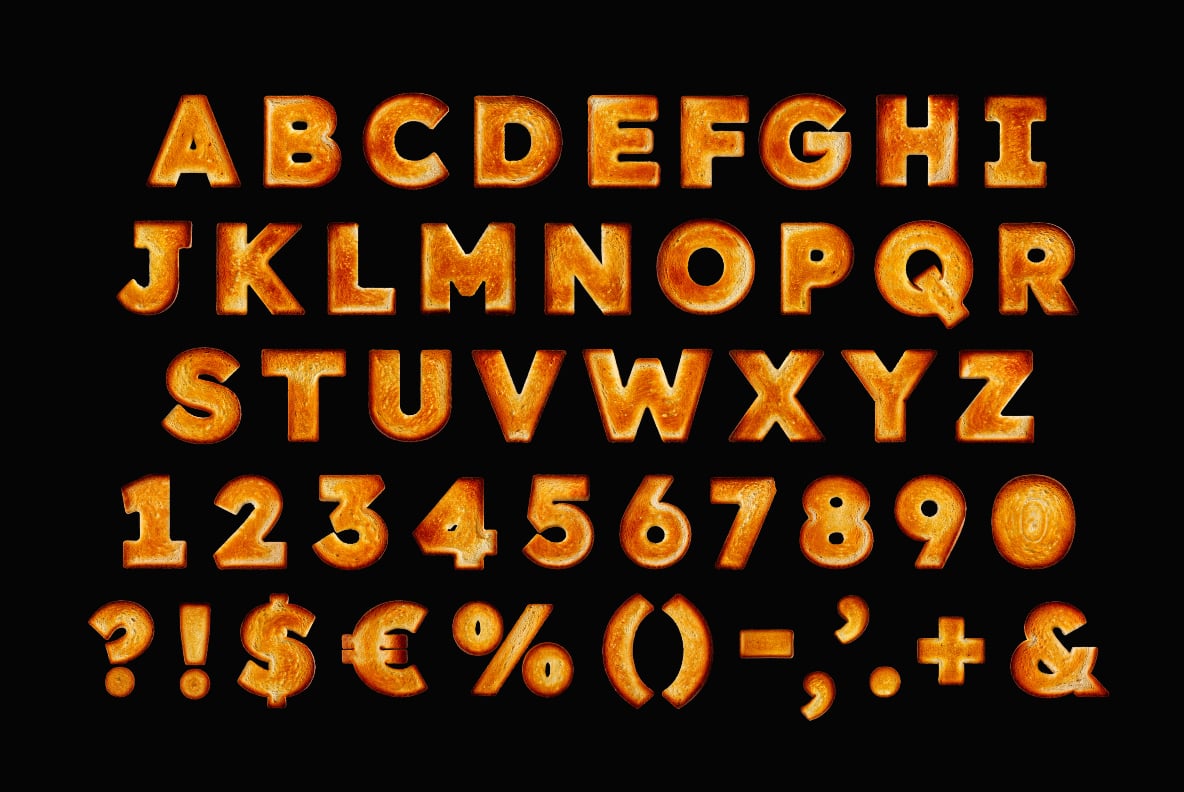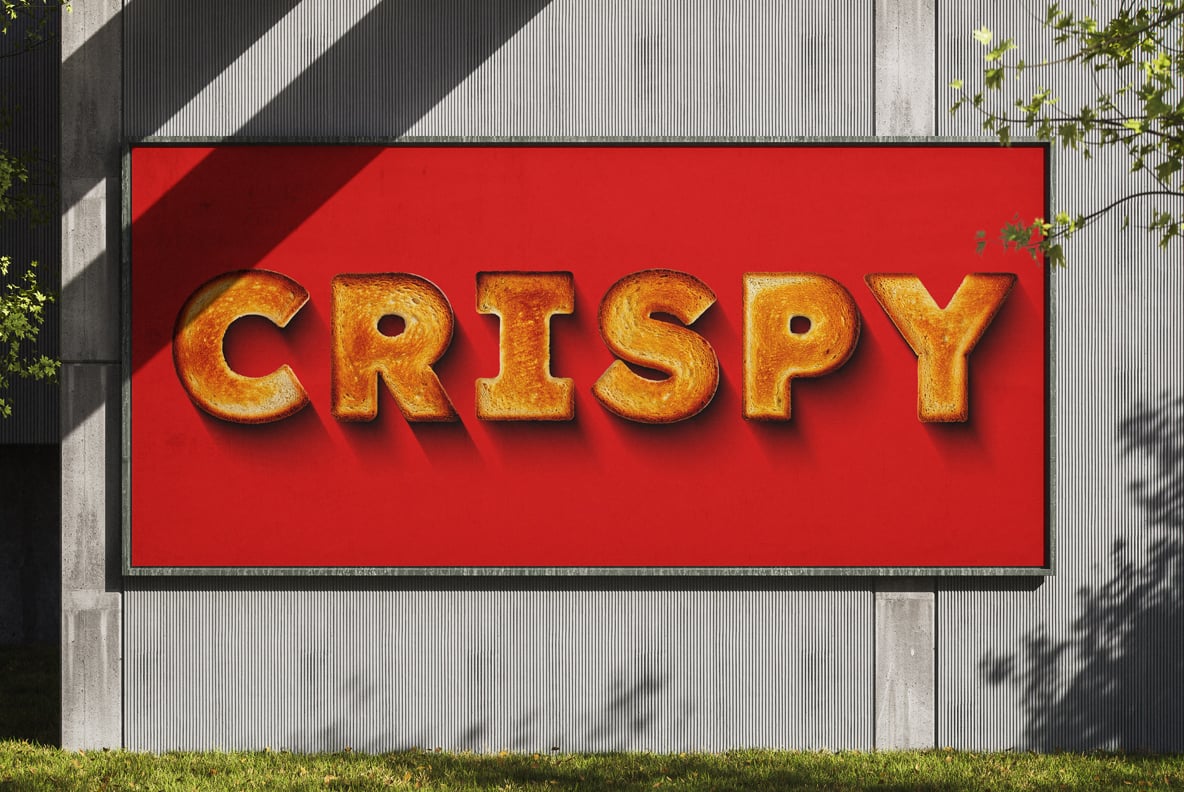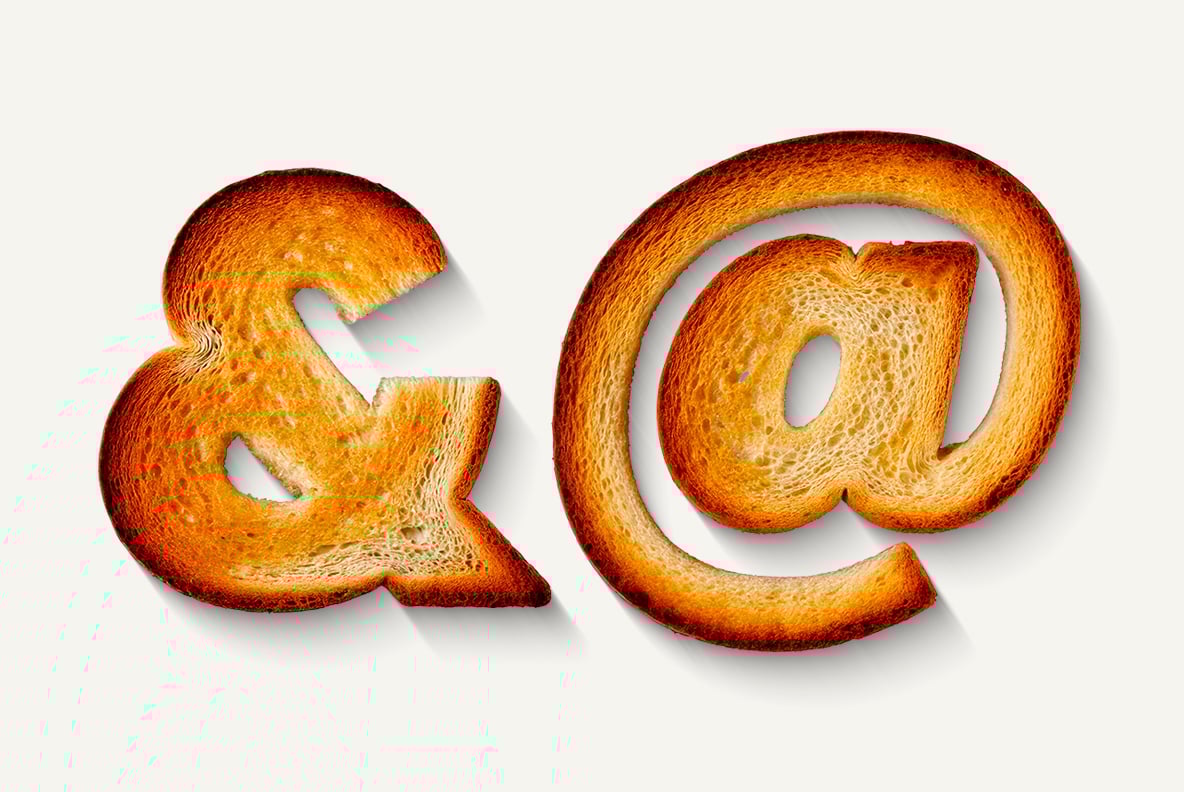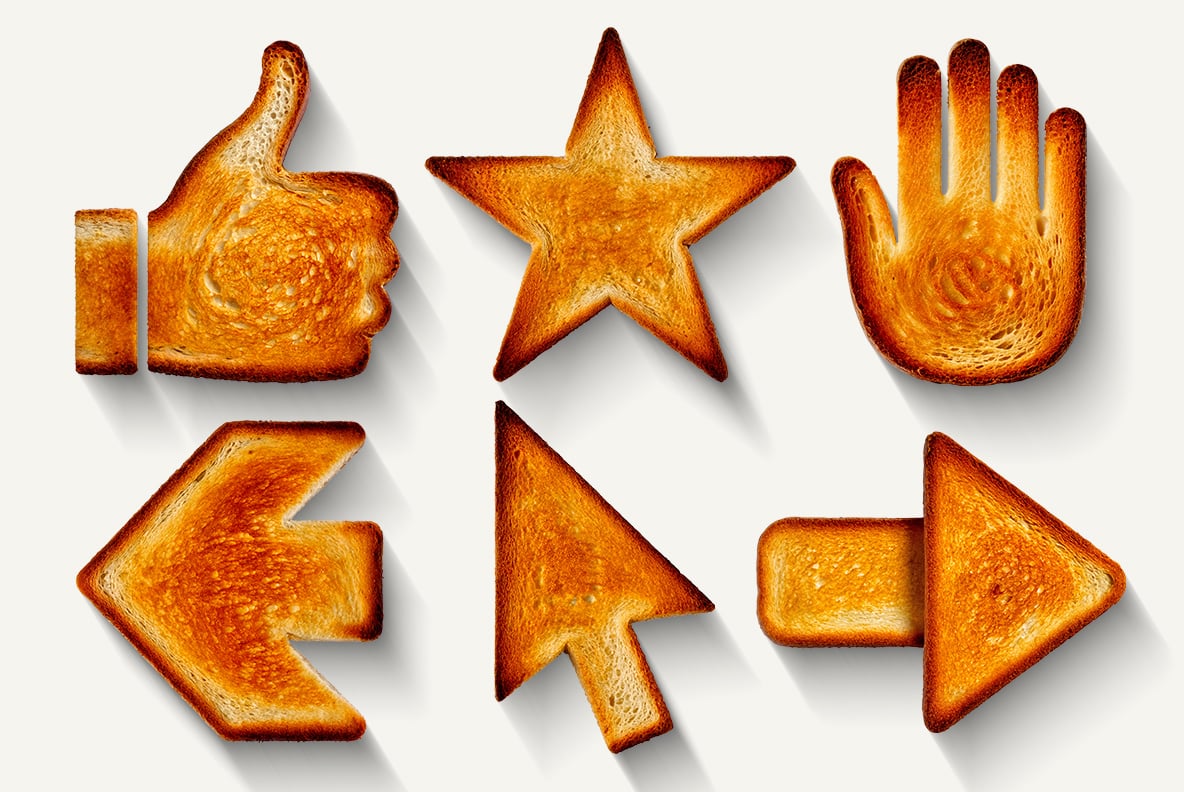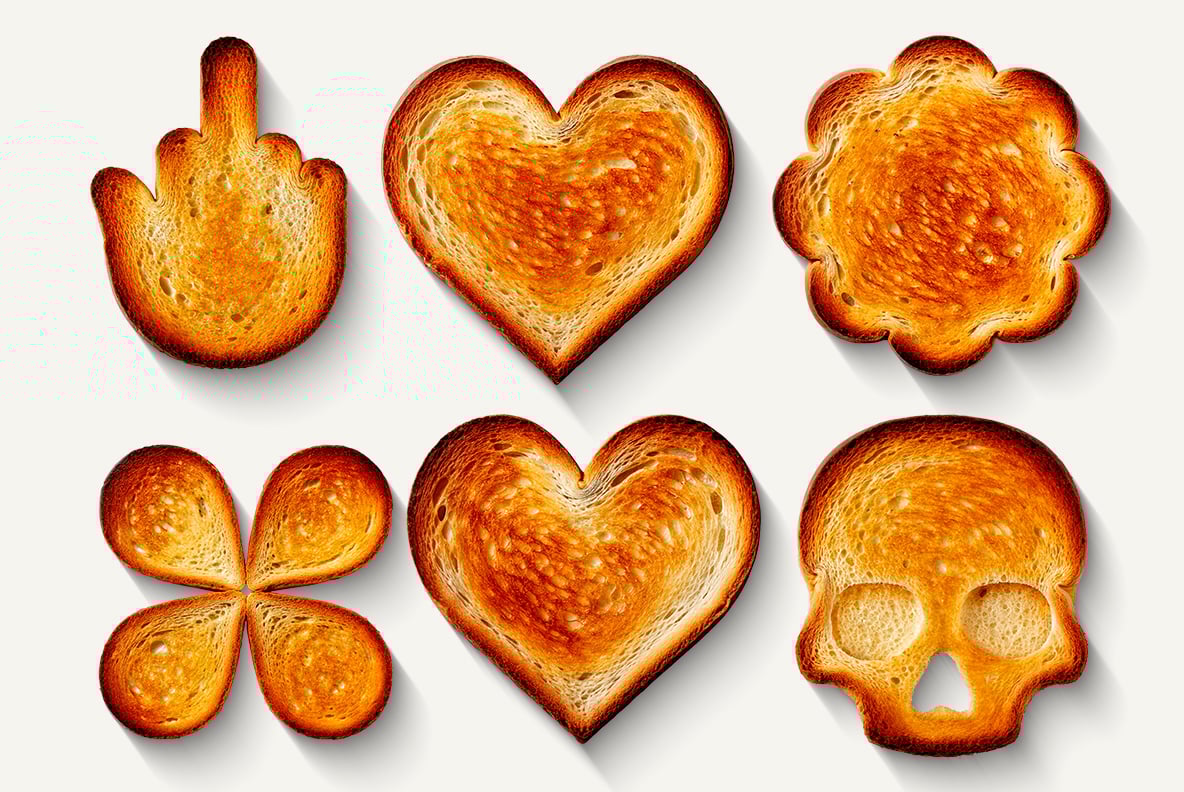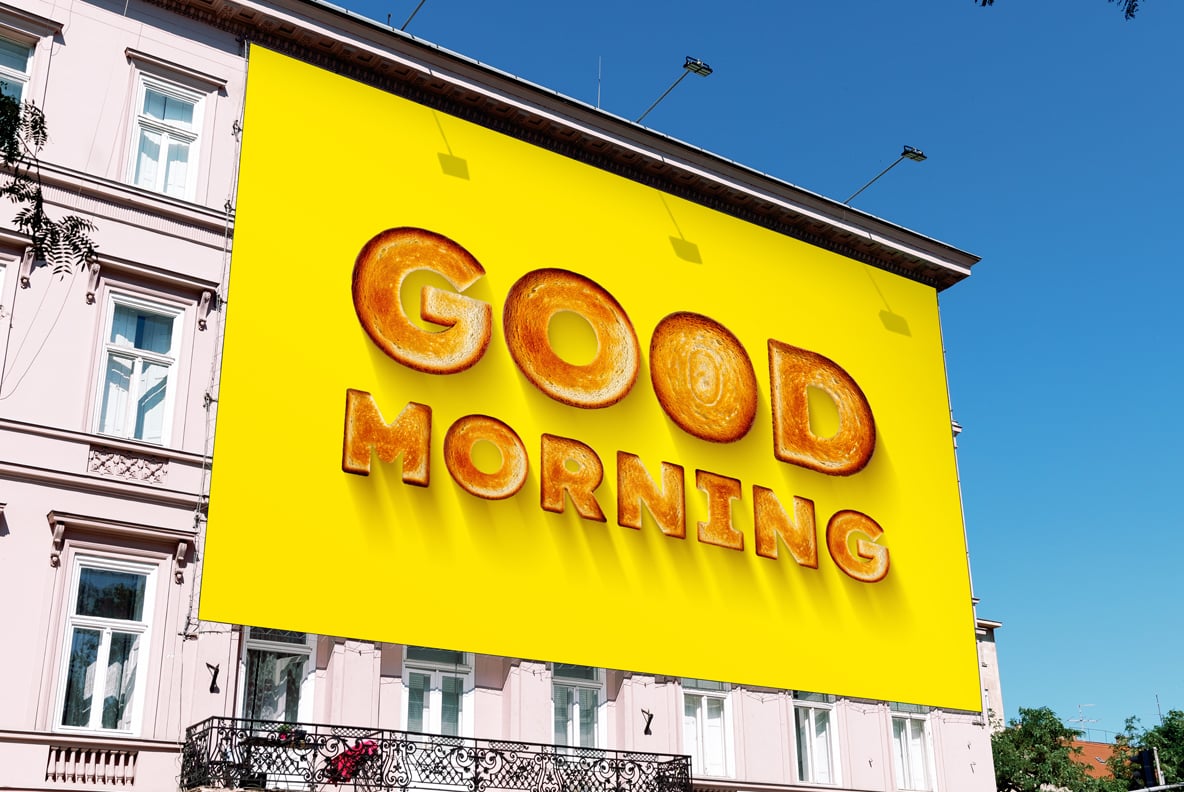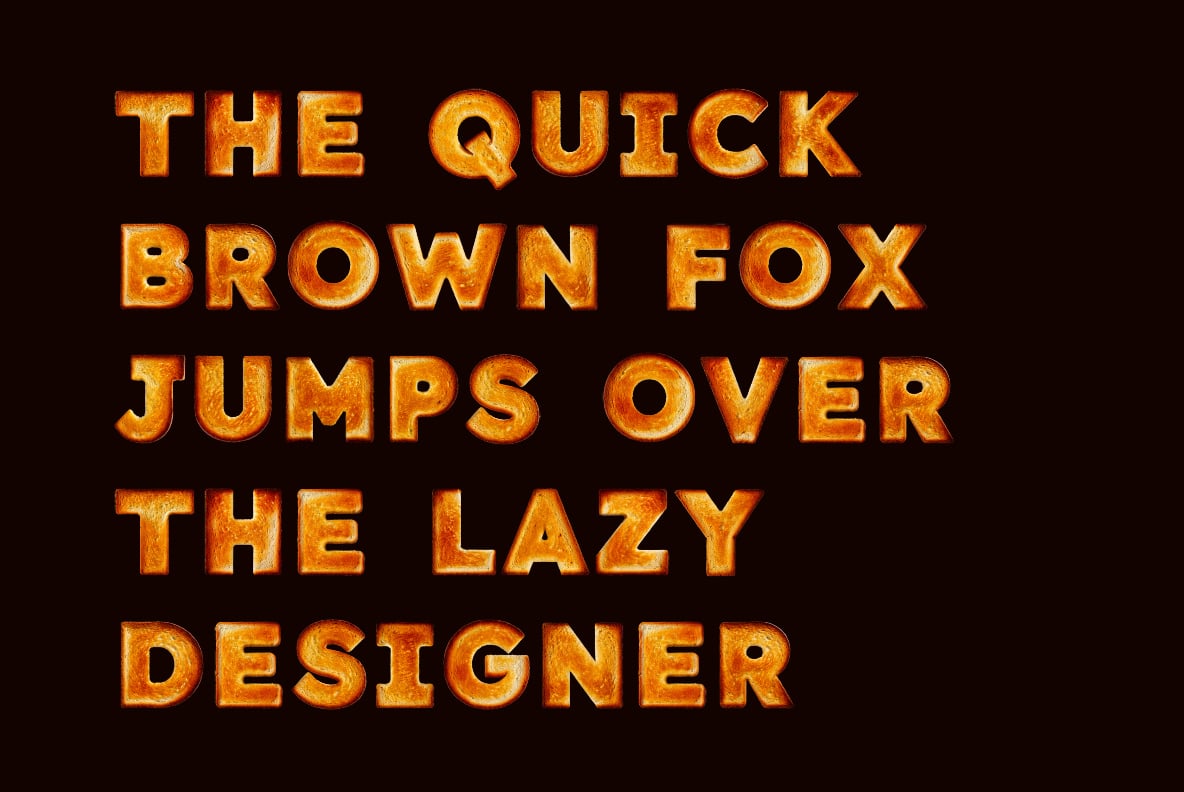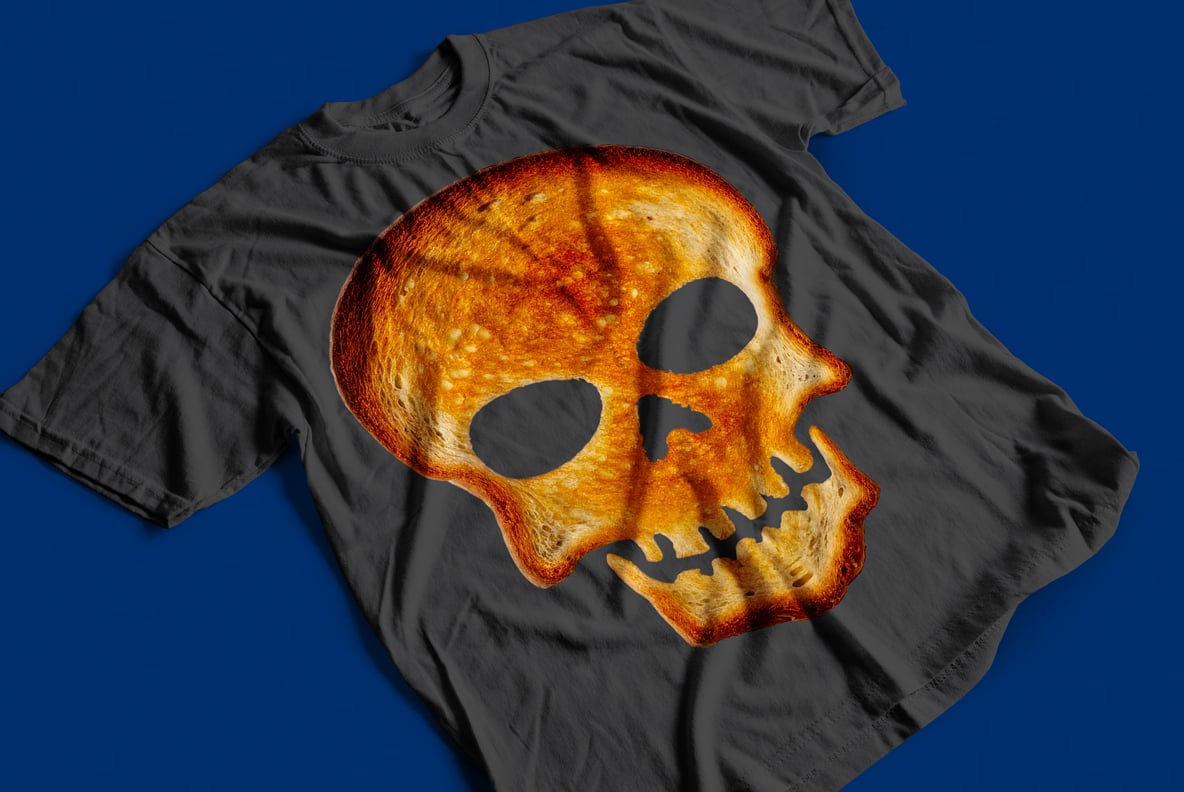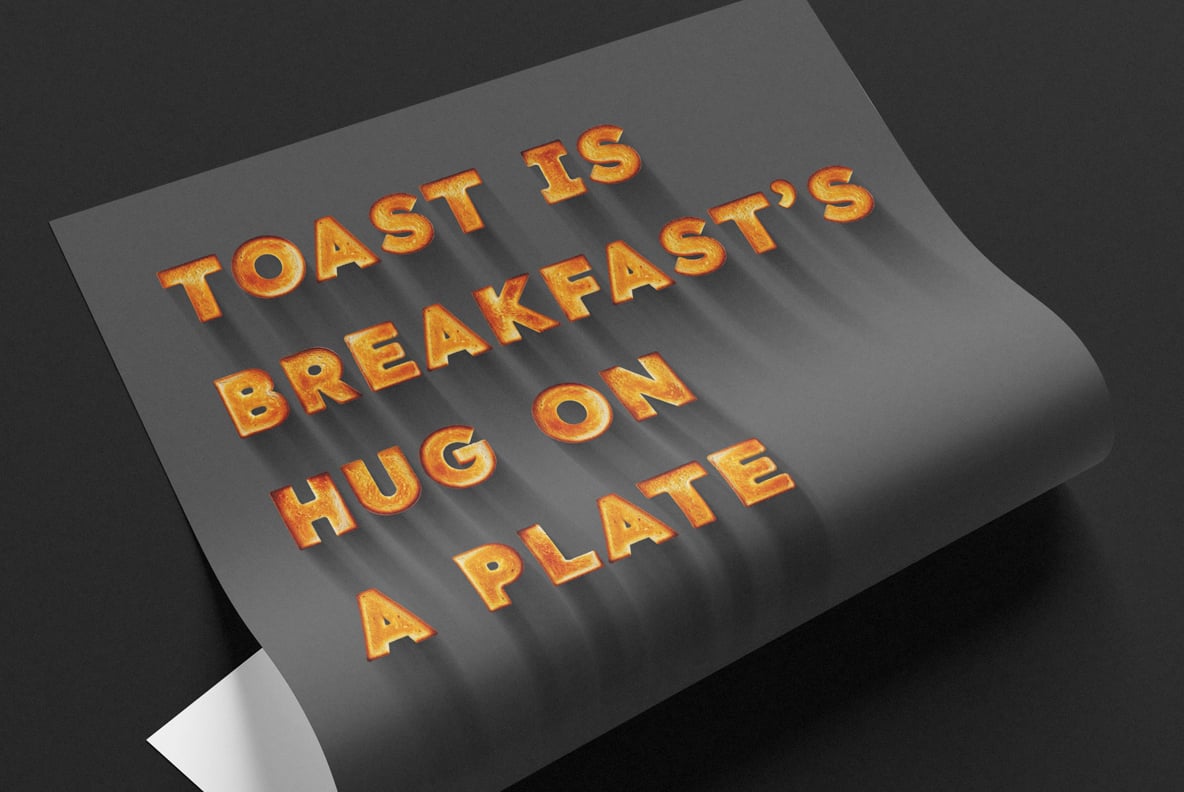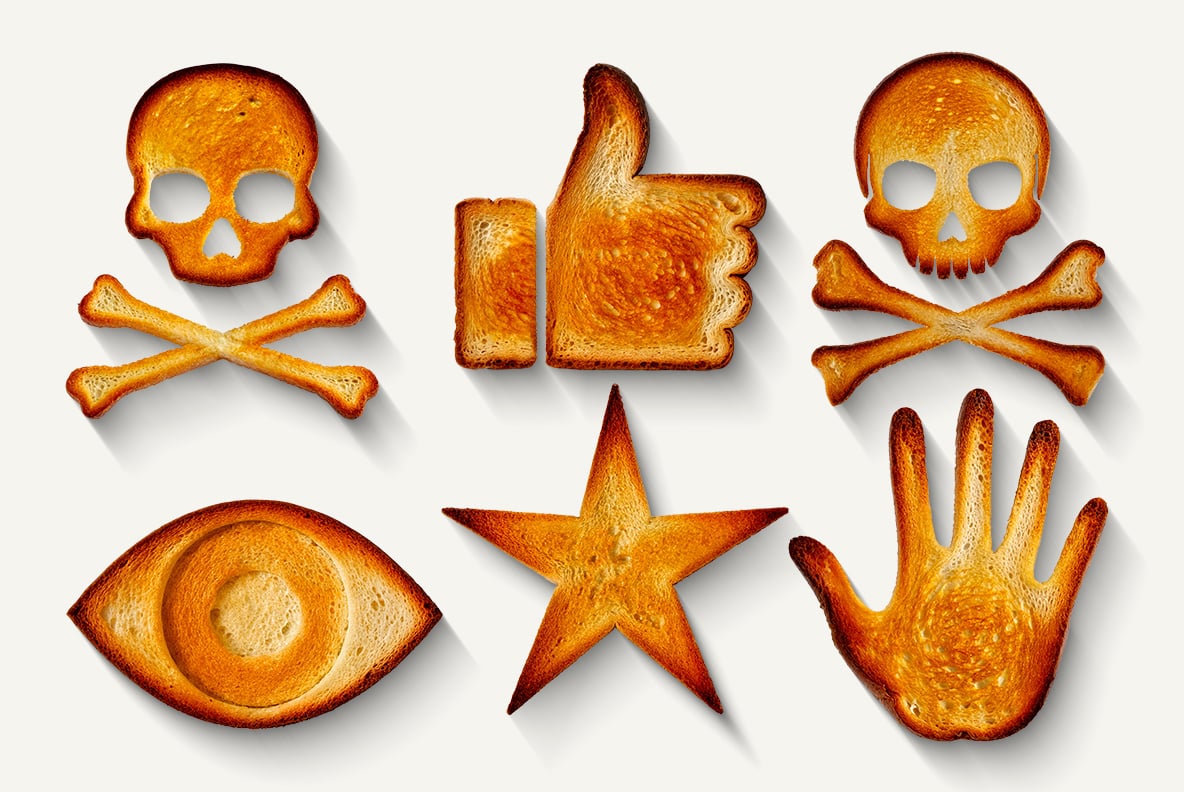
Golden Toast Font
The Golden Toast Font is a playful and deliciously unique typeface designed to bring warmth, comfort, and a touch of humor to your projects. Each letter is crafted to resemble a perfectly toasted slice of bread, with crispy golden edges and a soft, textured center that feels both familiar and inviting. Perfect for food branding, café menus, breakfast campaigns, children’s books, or any design that needs a cozy and appetizing vibe. This font instantly grabs attention with its fun, edible aesthetic while keeping readability intact. With Golden Toast Font, every word looks freshly baked and ready to brighten your day.